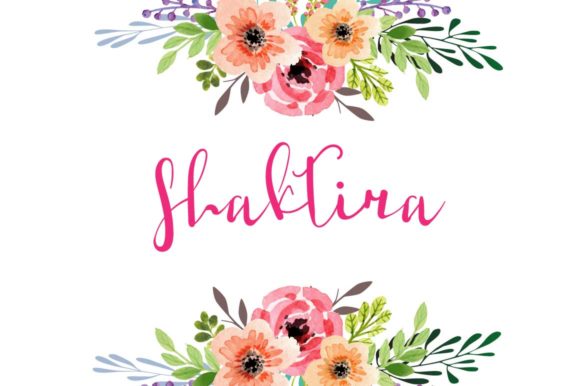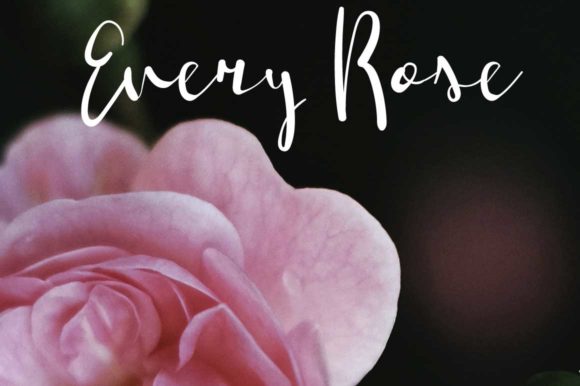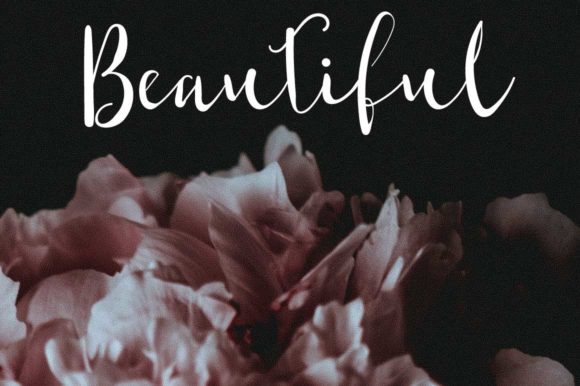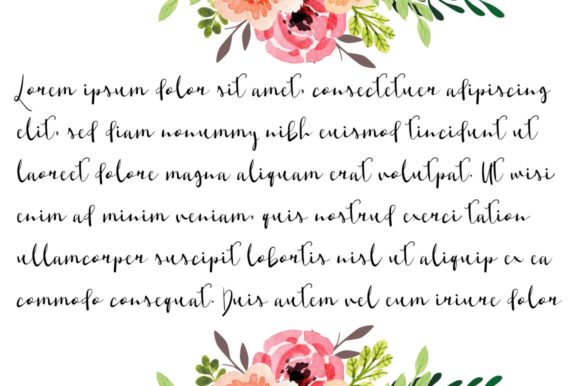
Shaktira Font
About Shaktira Font
Shaktira is a beautiful and elegant handwritten font with a charming twist. It will put an elegant twist on any design project.